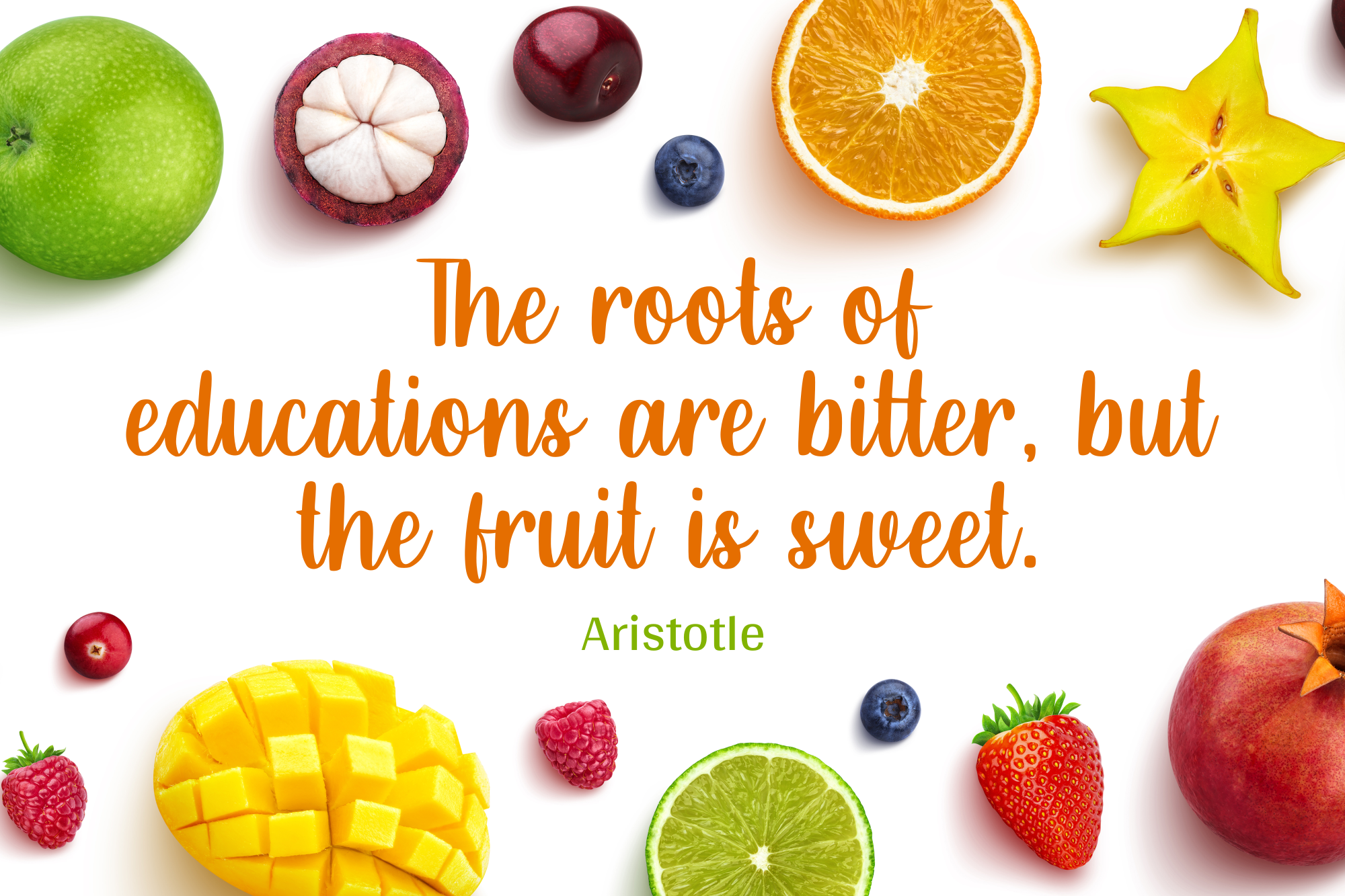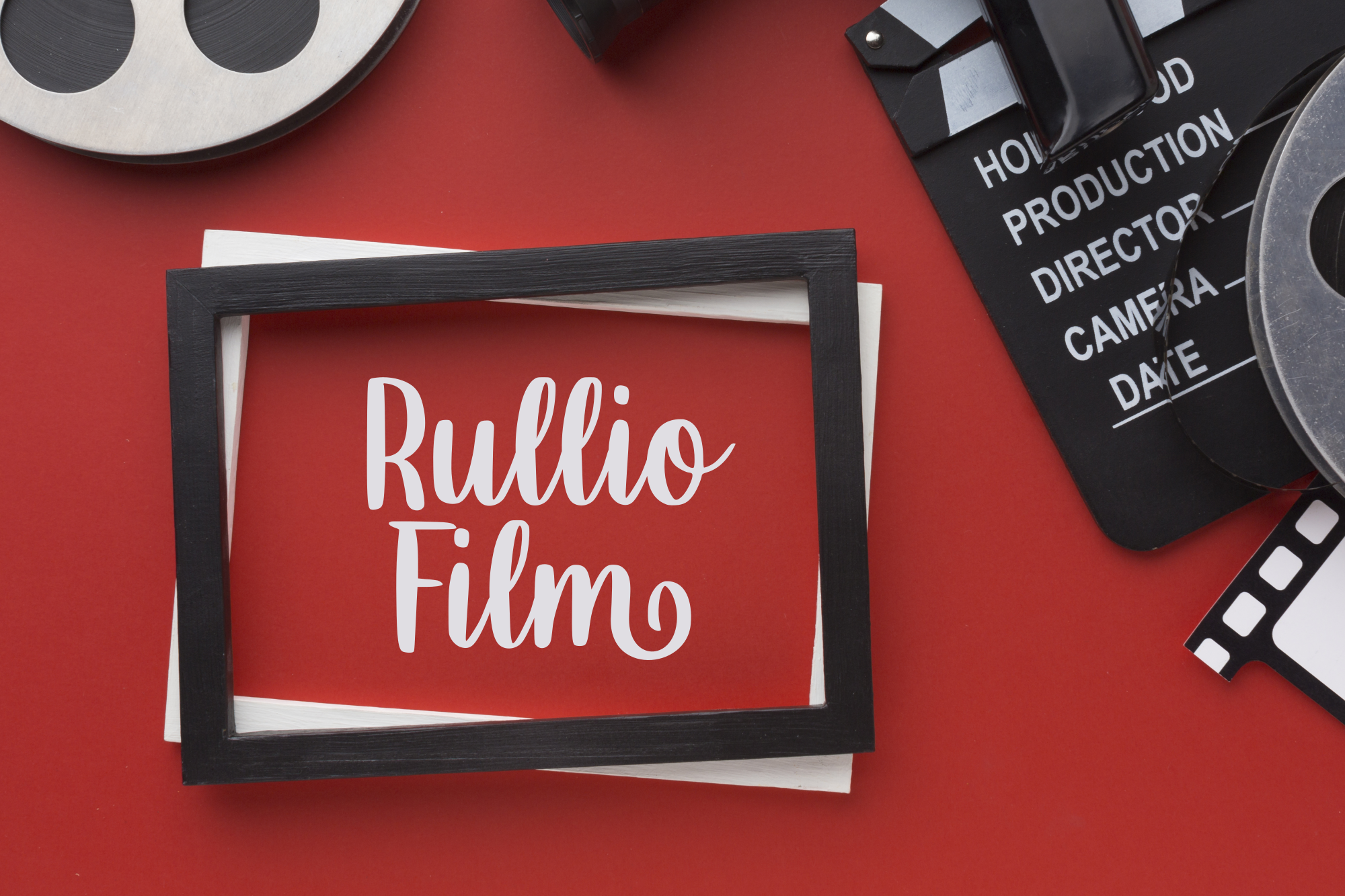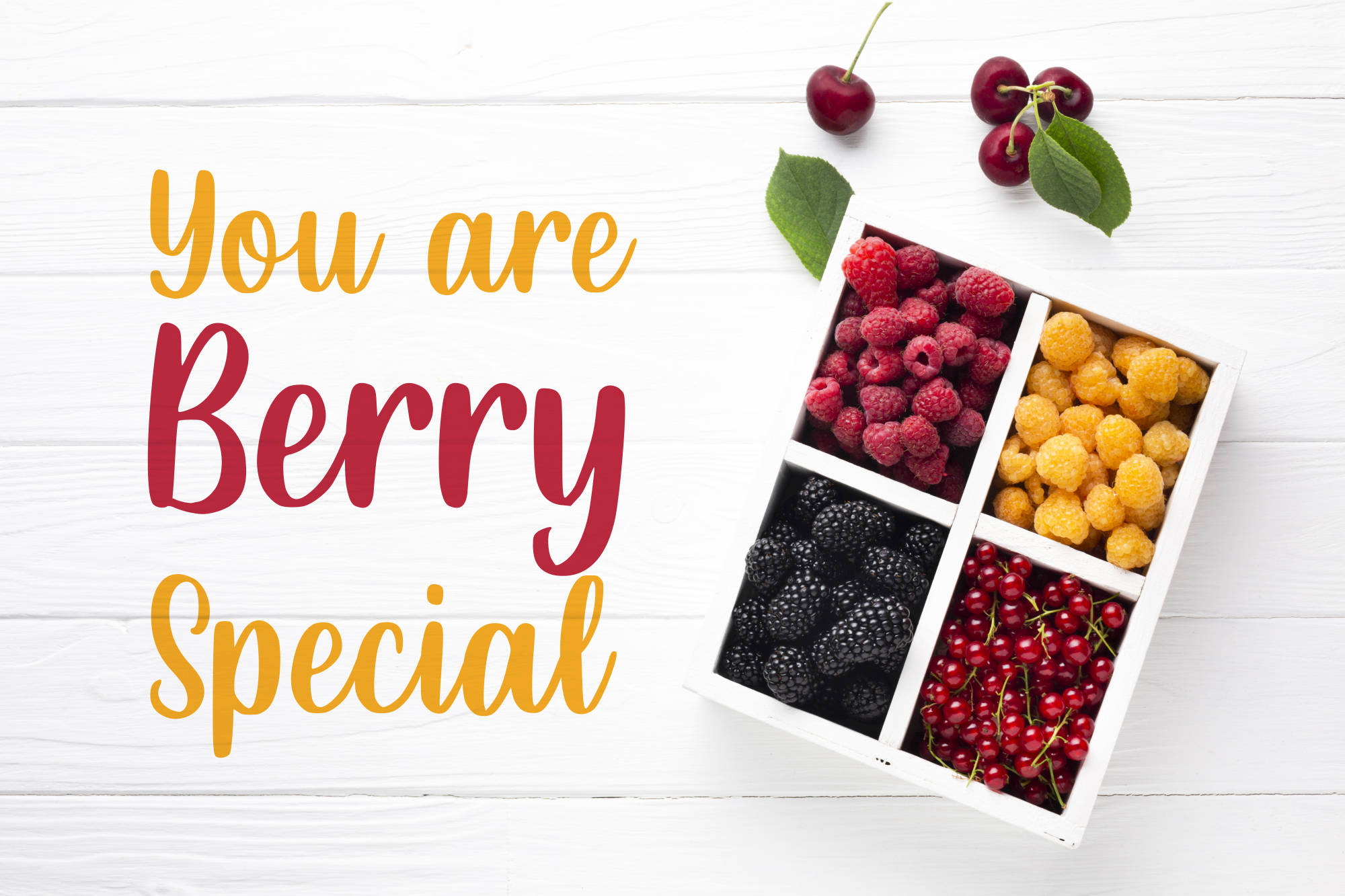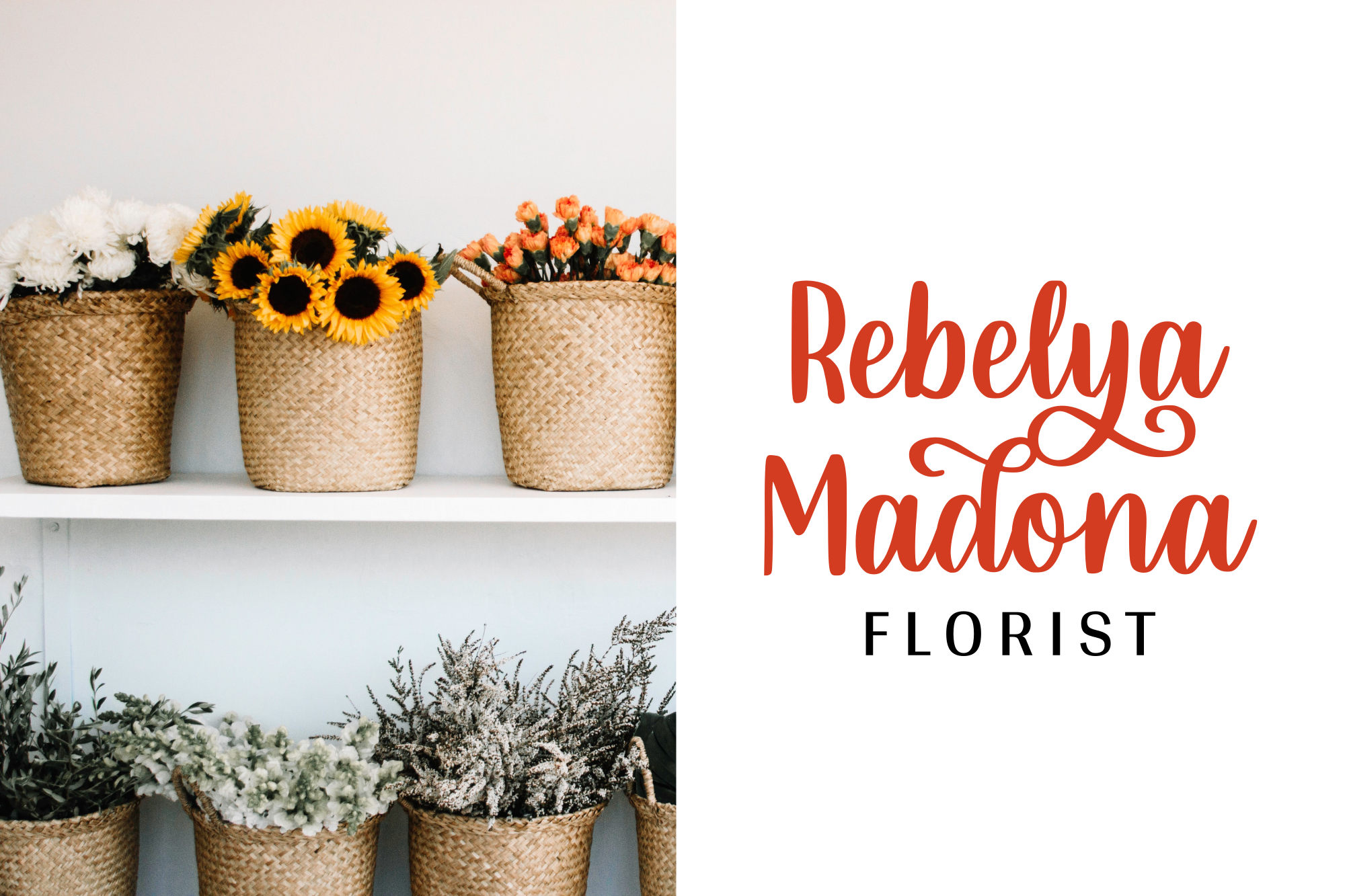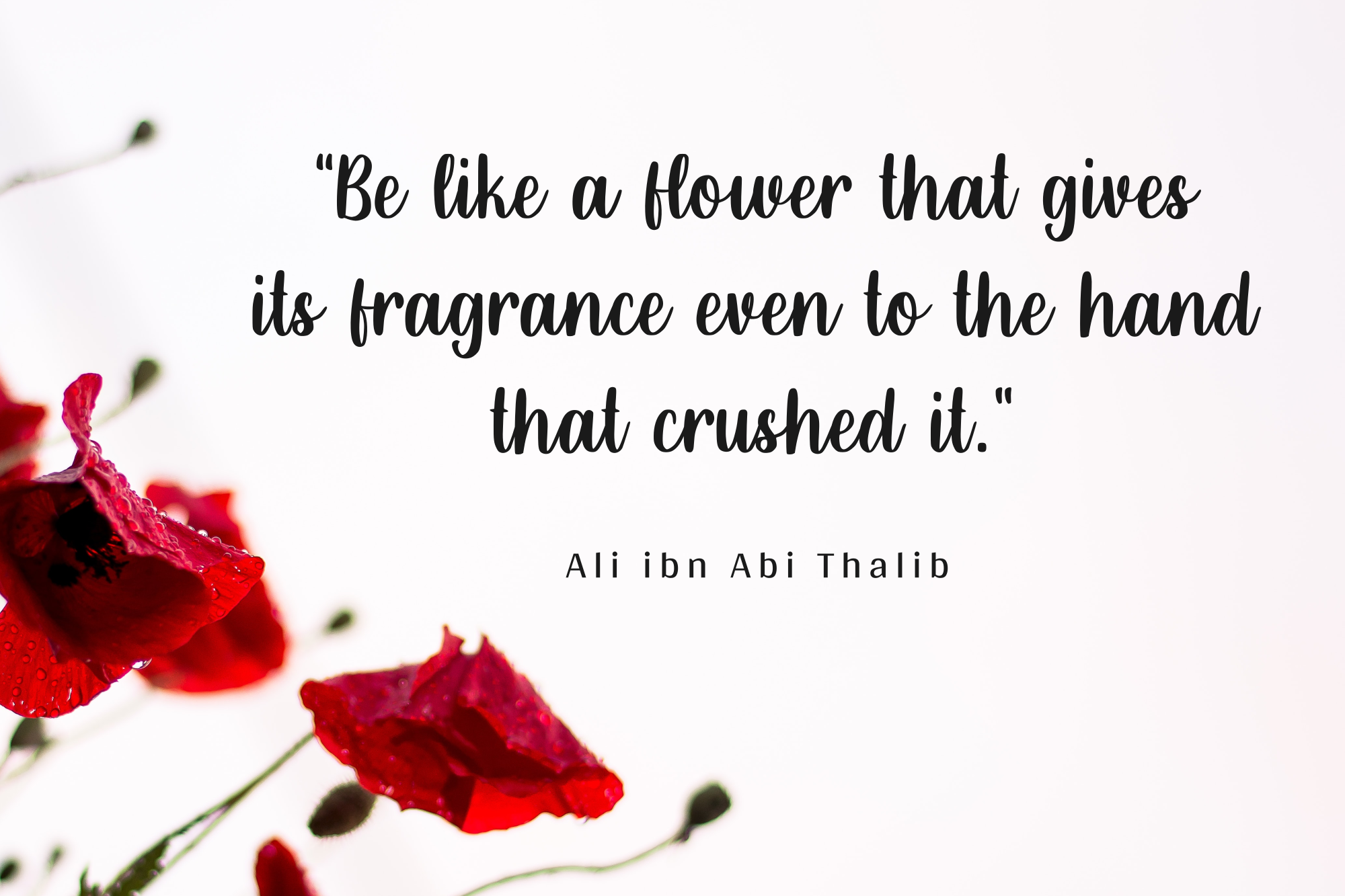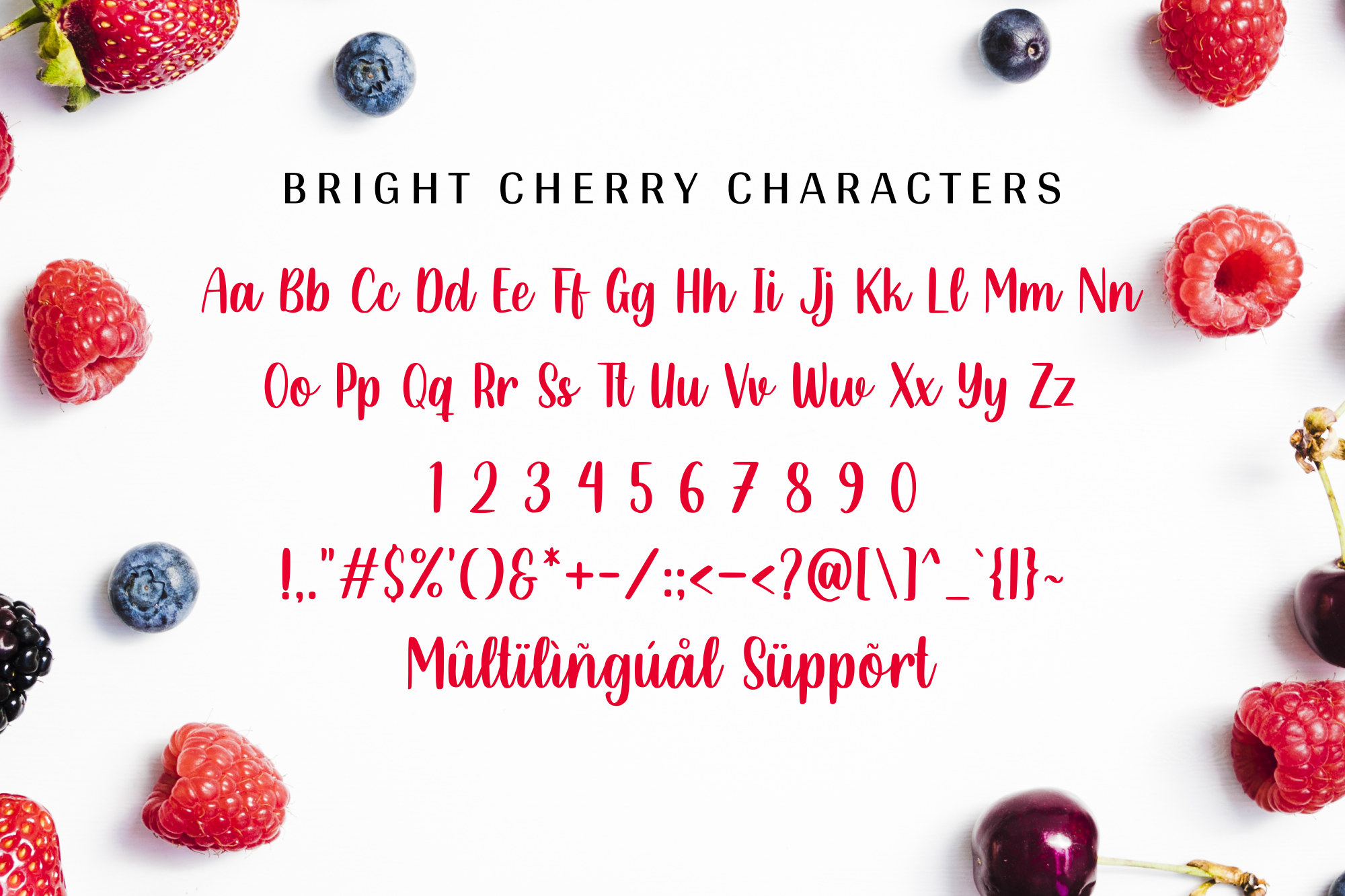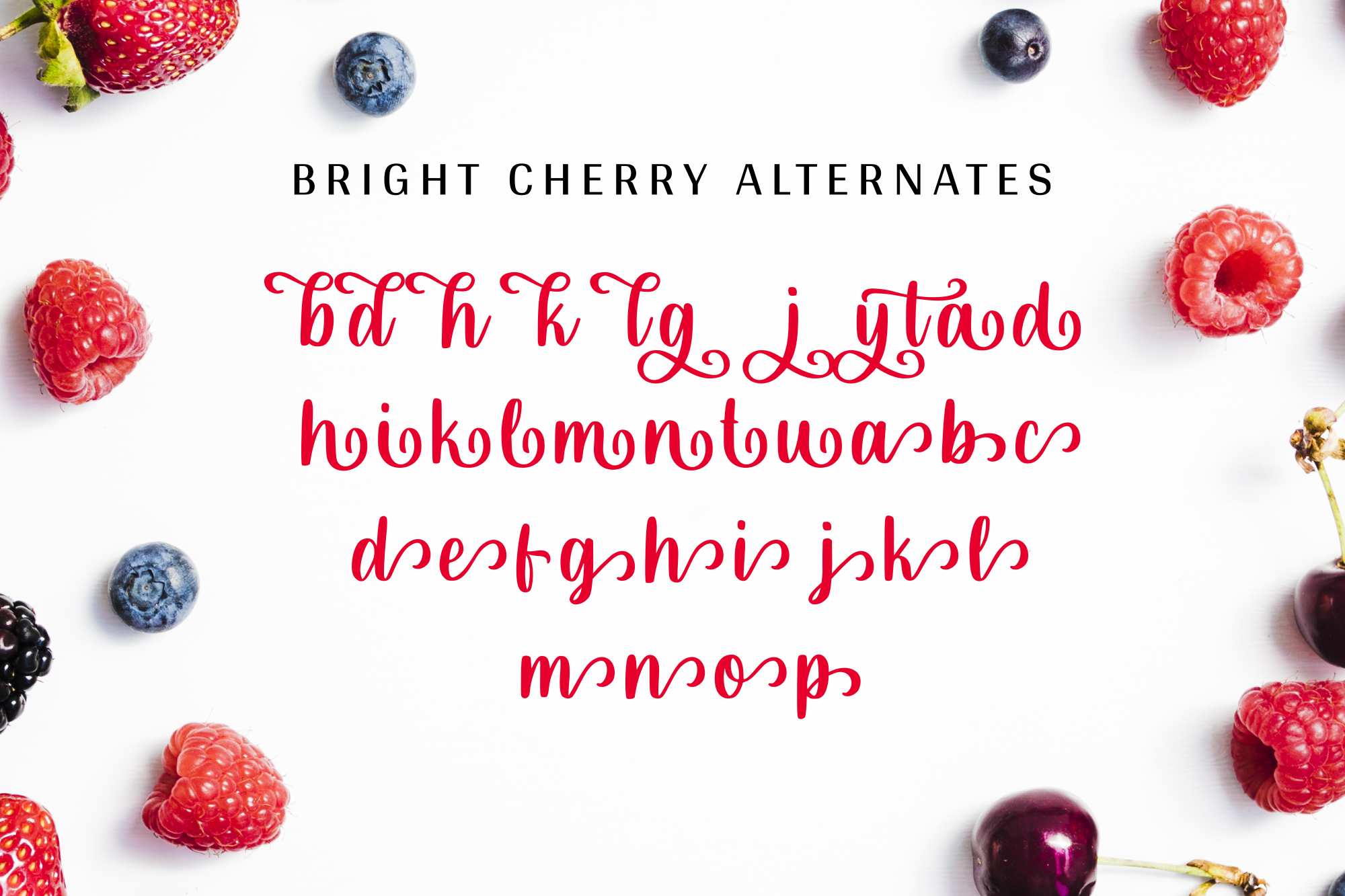
Bright Cherry - Handwritten Font
Bright Cherry is a magical handwritten font with a touch of timeless elegance and authentic calligraphy. It feels classic, friendly, and beautifully refined.
Bright Cherry is a magical handwritten font with a touch of timeless elegance and authentic calligraphy. It feels classic, friendly, and beautifully refined. It is perfect for creating original designs such as logos, invitations, branding, packaging, quotes, greeting cards, and more.
Bright Cherry - Handwritten Font
Creating original designs such as logos, invitations, branding, packaging, quotes, greeting cards,